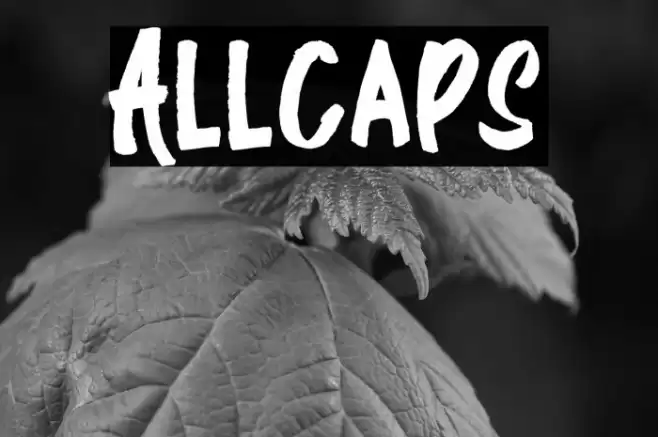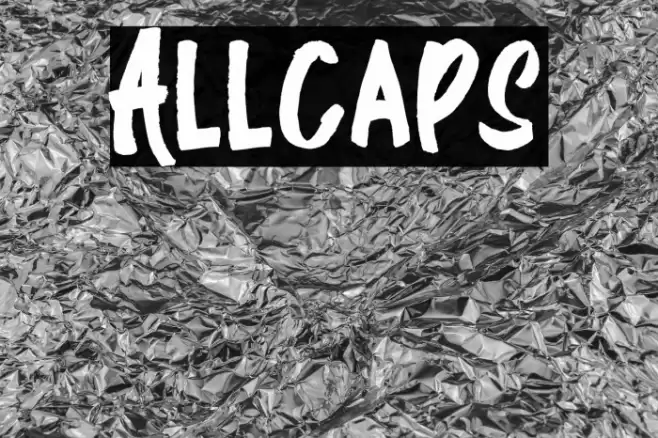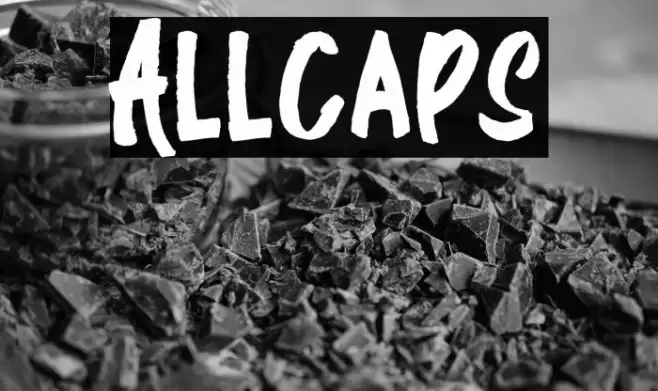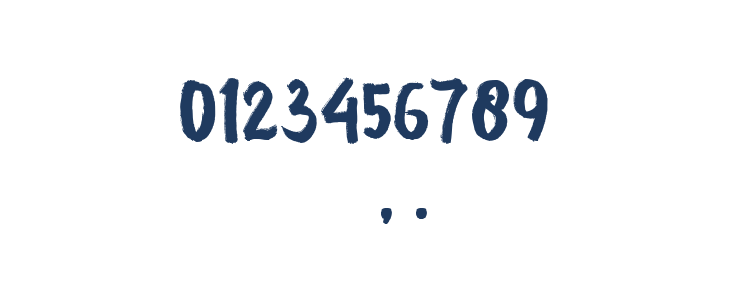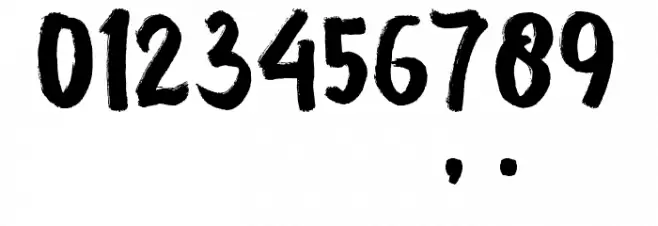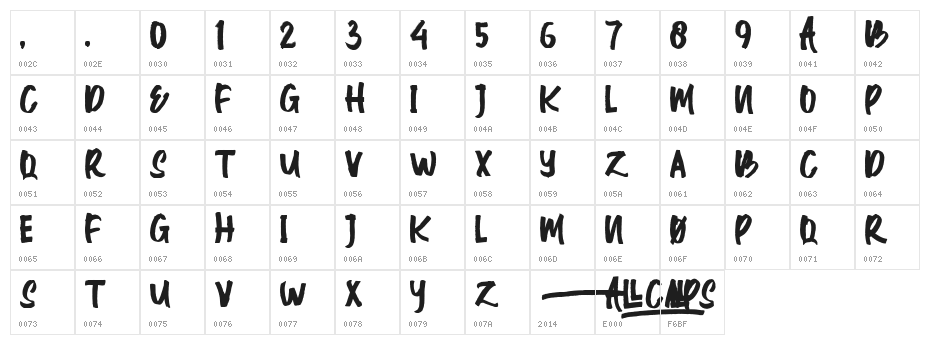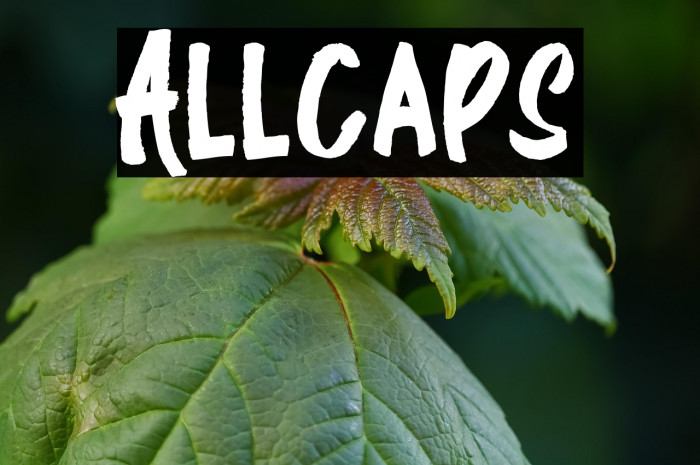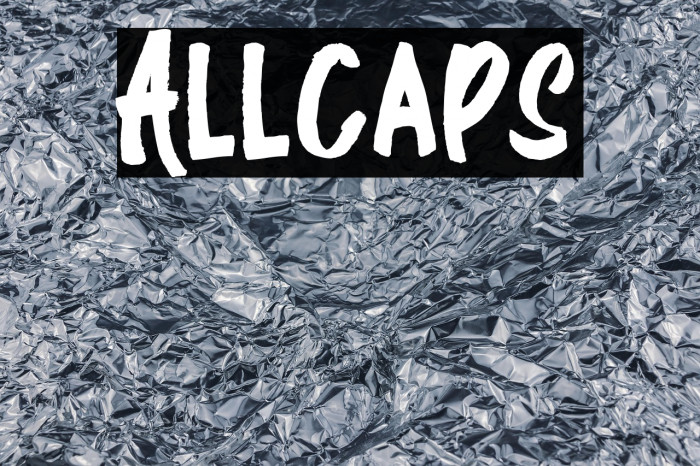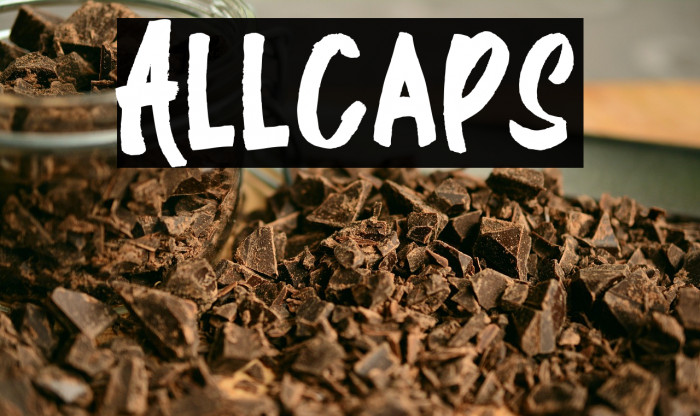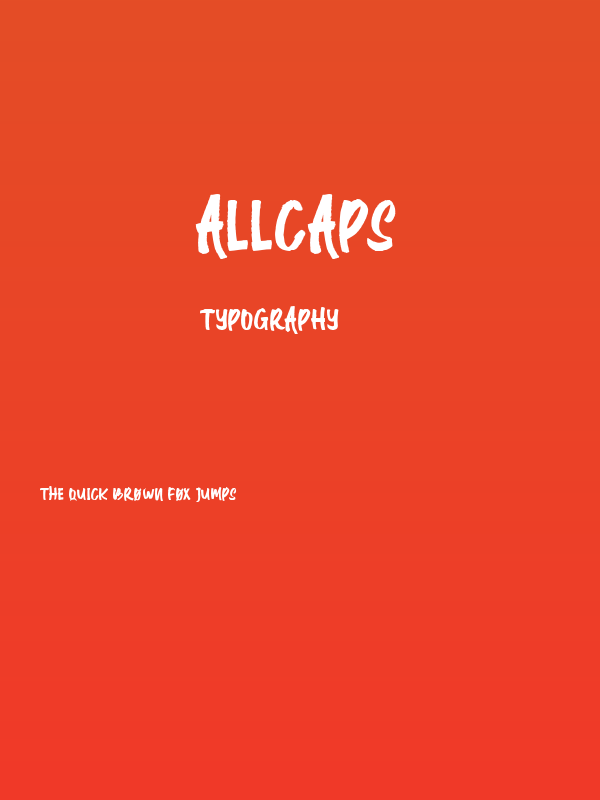
Allcaps Font
Allcaps Description
This font features bold, hand-drawn characters with a brush-like texture, giving it a dynamic and energetic appearance. The uppercase letters are prominent and slightly irregular, adding a sense of movement and spontaneity. The numbers and punctuation maintain the same lively style, ensuring consistency across all characters. The strokes are thick and expressive, with varying widths that contribute to a high contrast look. This font is ideal for projects that require a bold statement, such as posters, headlines, or branding materials. Its unique style captures attention and conveys a sense of creativity and boldness.
A bold, brush-style font with high contrast and dynamic character shapes from Regular fonts.
- Proposed Projects: Ideal for posters, headlines, branding, and any project needing a bold, artistic touch.